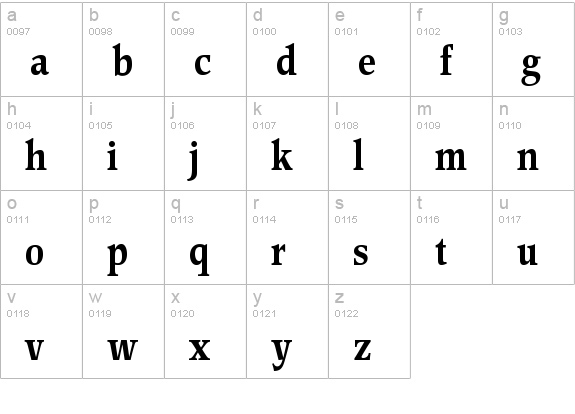
Poppl-Pontifex R Font Details
Poppl-Pontifex R is a stunning and elegant serif font that exudes sophistication and charm. With its classic yet modern design, this font is perfect for various design projects such as invitations, branding, and editorial content. The unique characteristics of Poppl-Pontifex R make it stand out and leave a lasting impression on viewers. The best part about Poppl-Pontifex R font is that it is completely free to download. You can easily access this beautiful font at FontsMarket.com, where you can enhance your creative projects without any cost. Don't miss out on the opportunity to add this exquisite font to your collection and elevate your designs to the next level. Download Poppl-Pontifex R today and let your creativity shine!